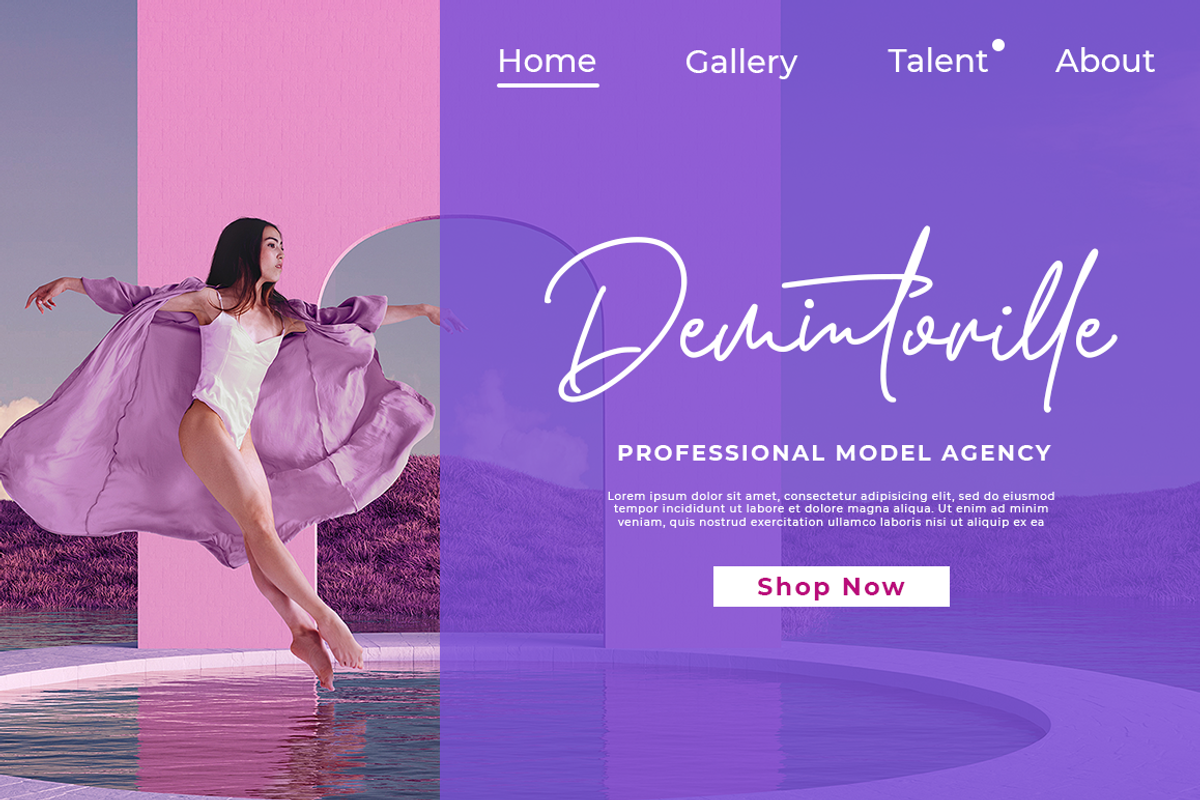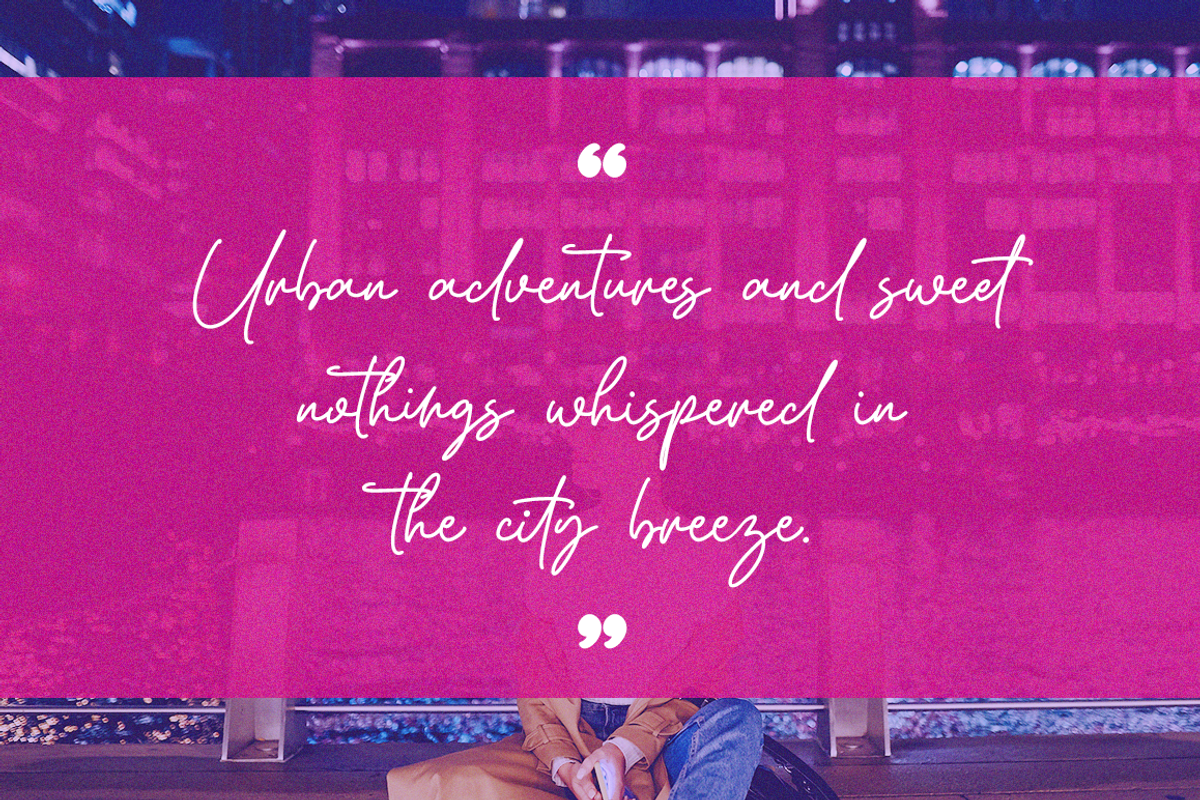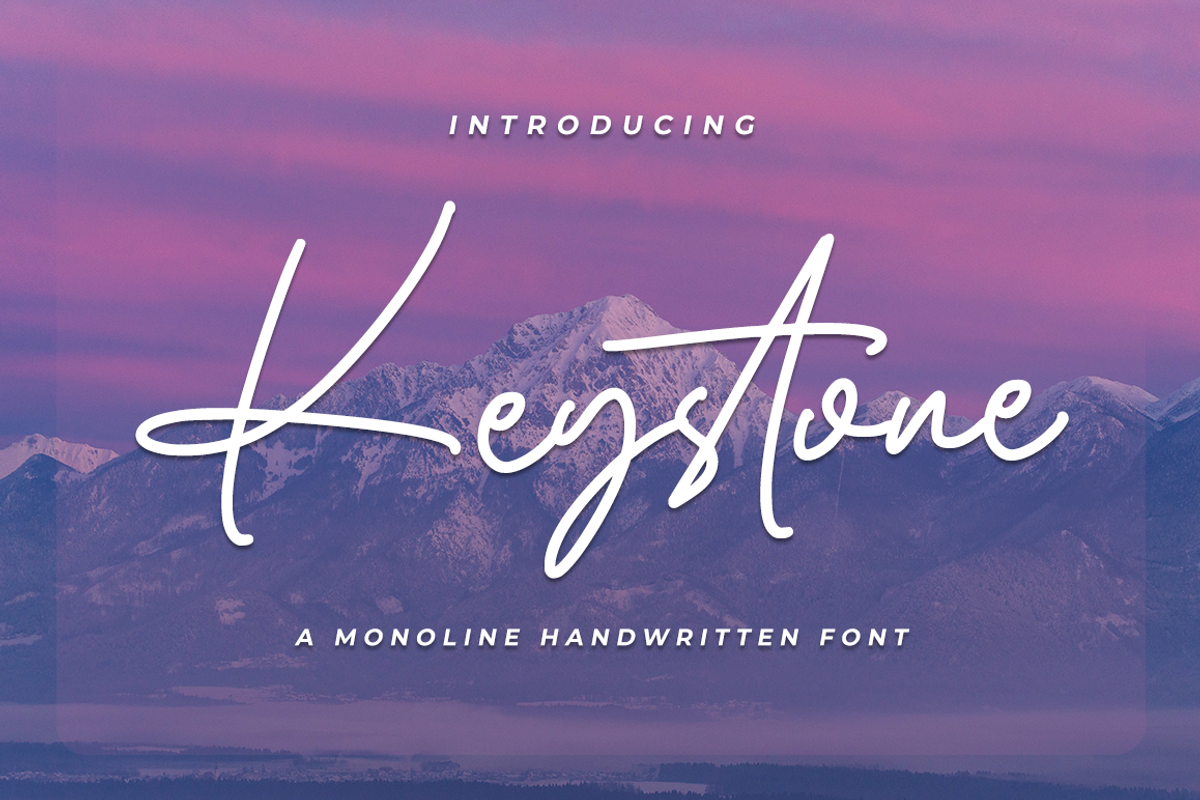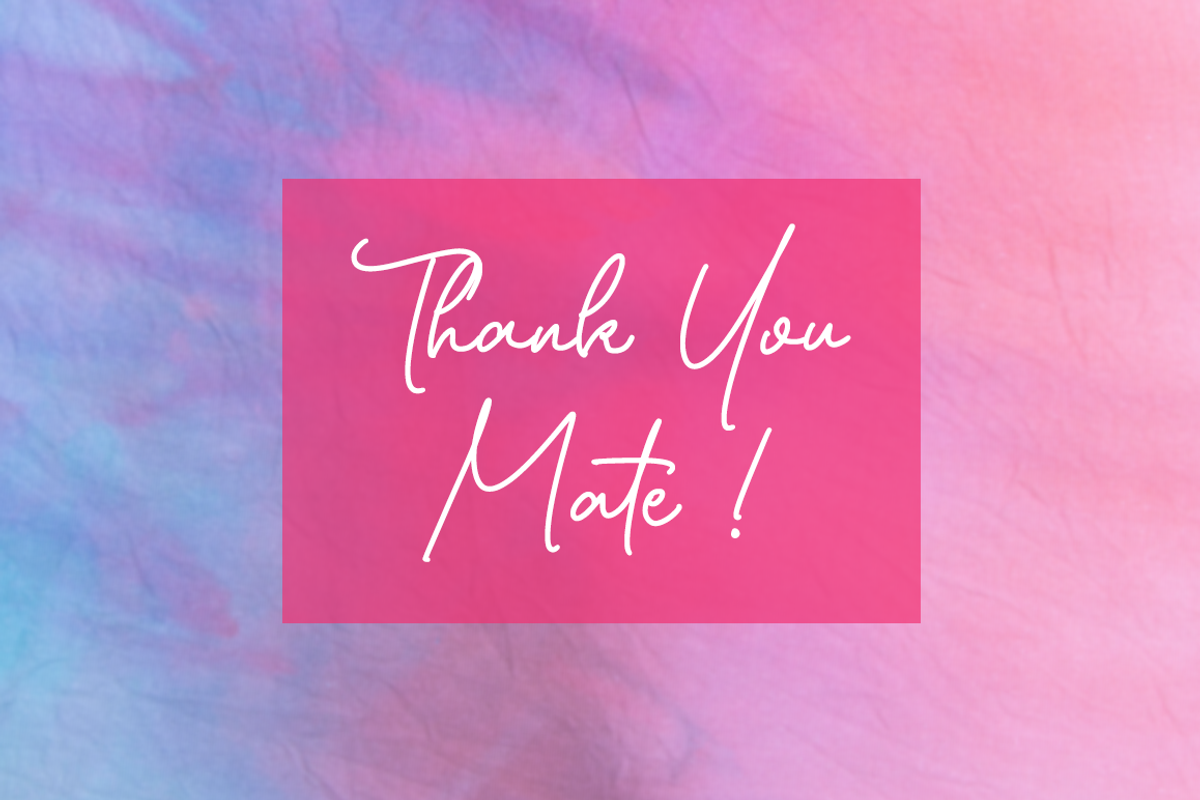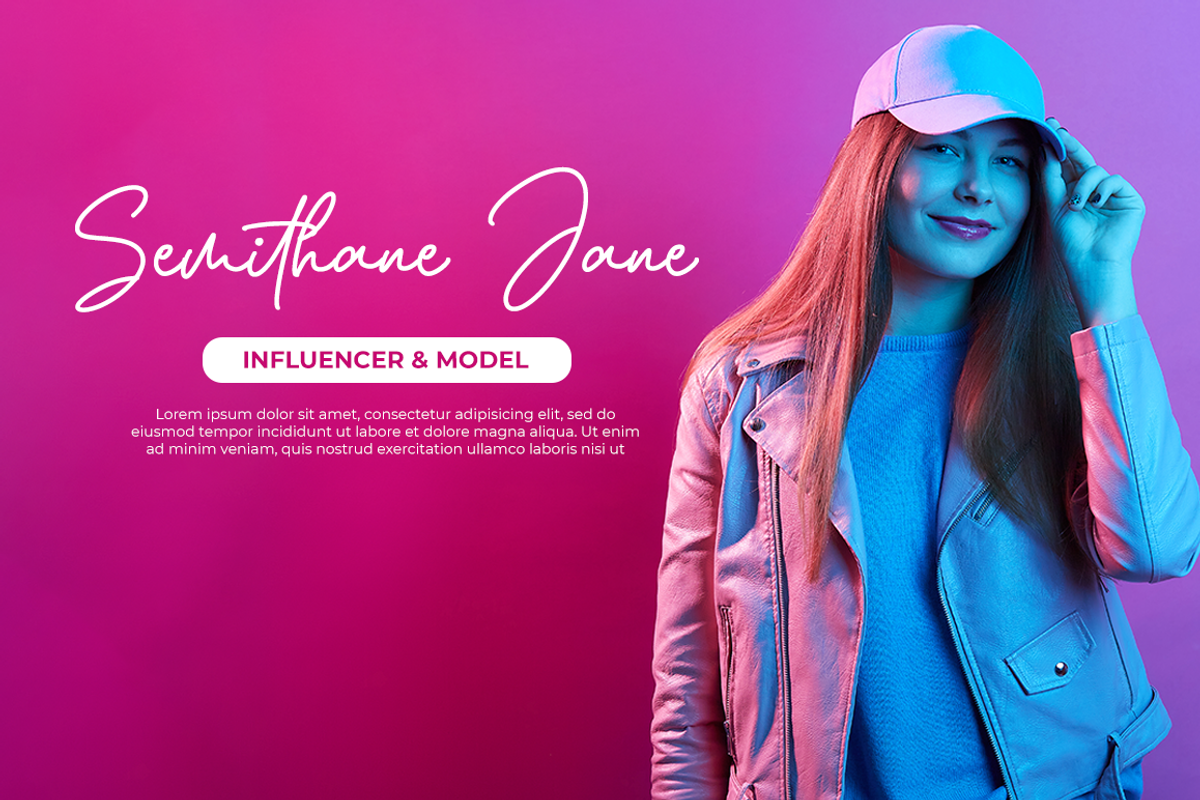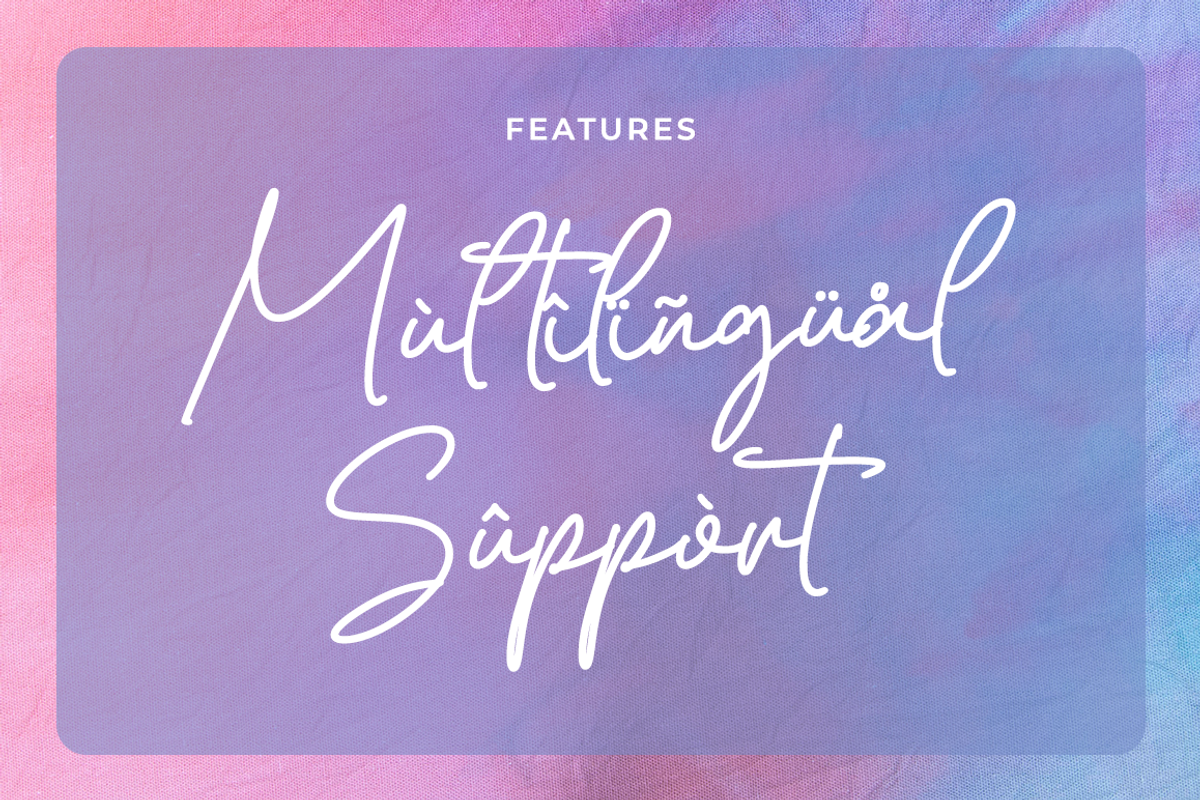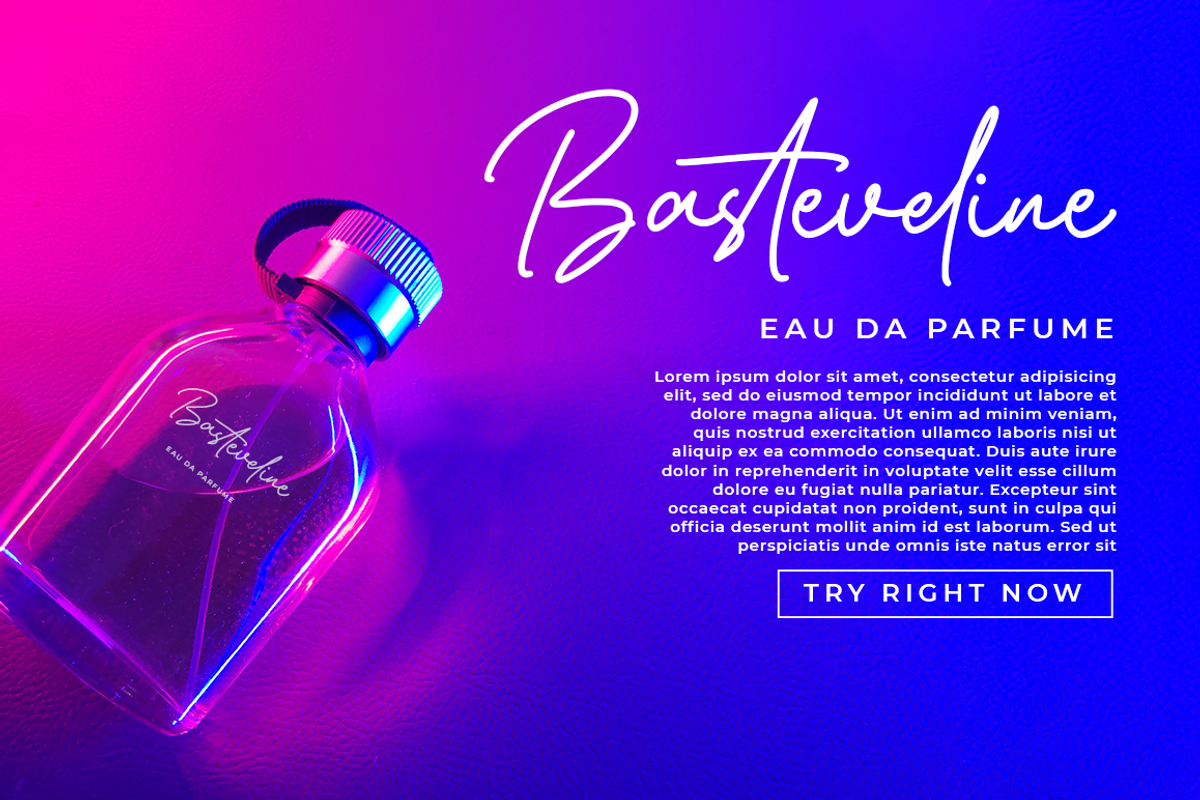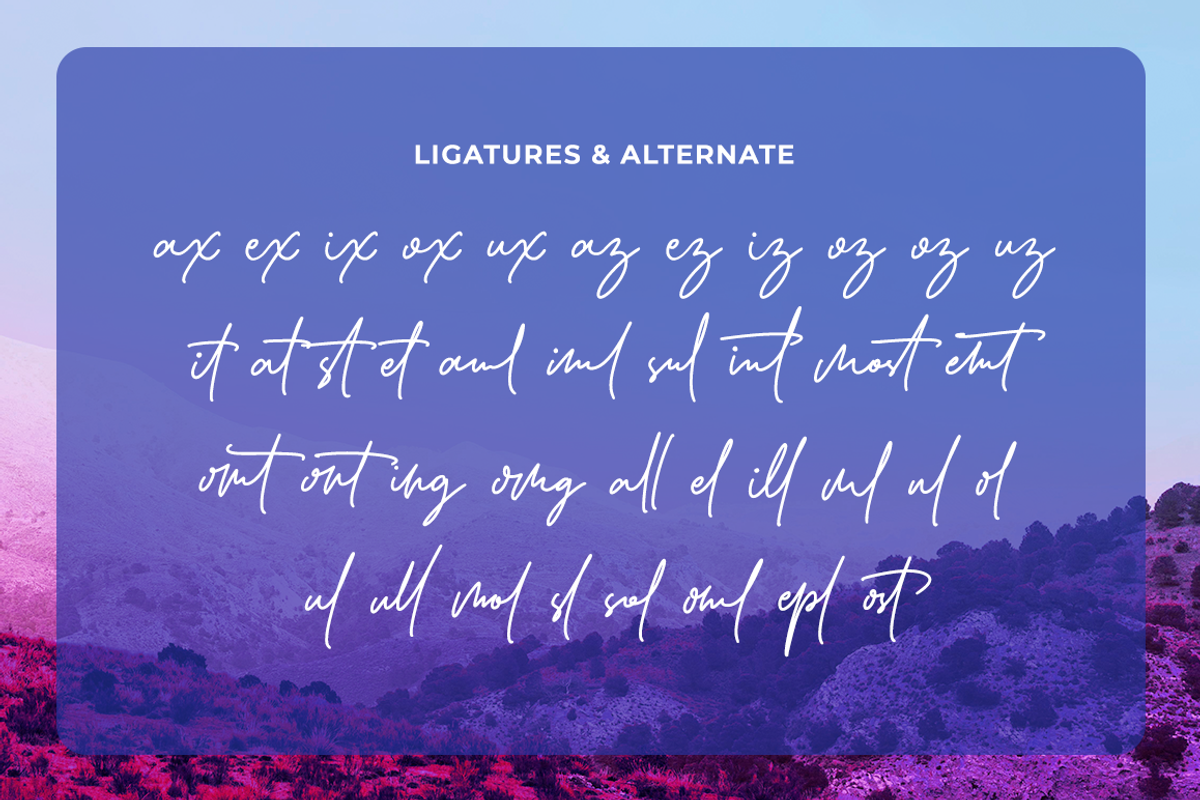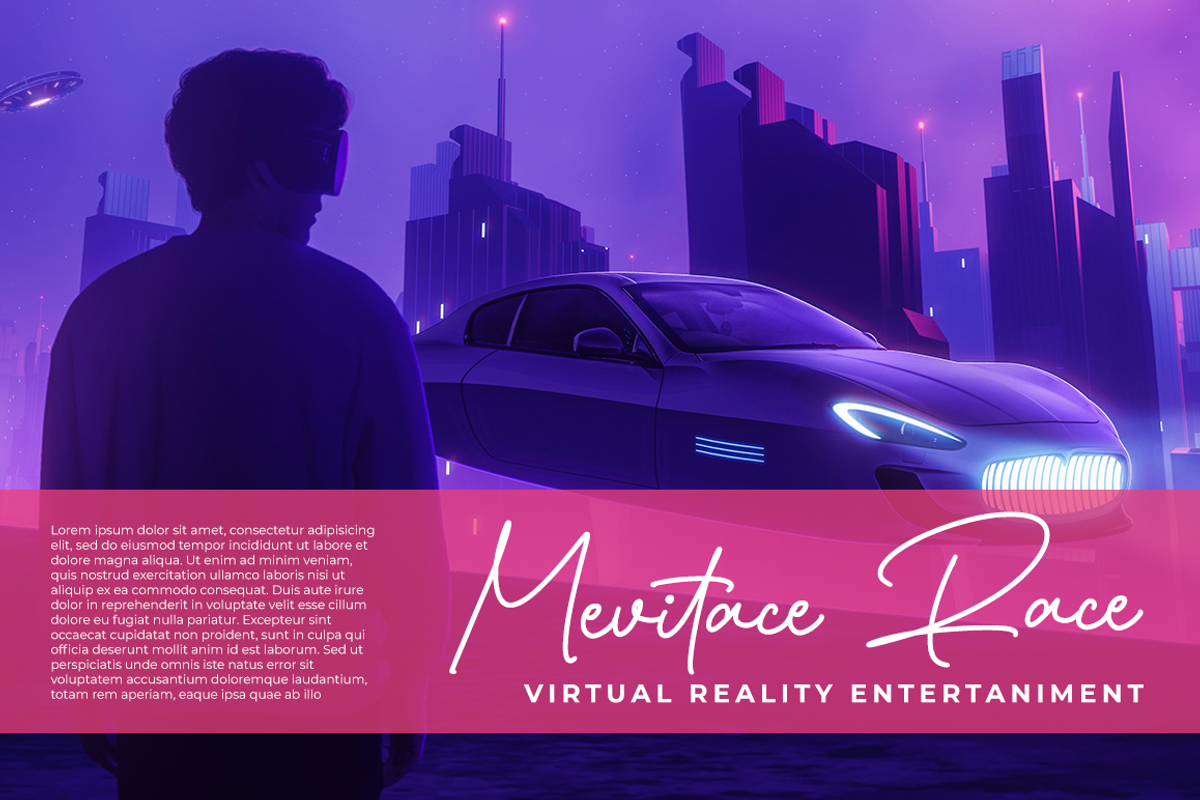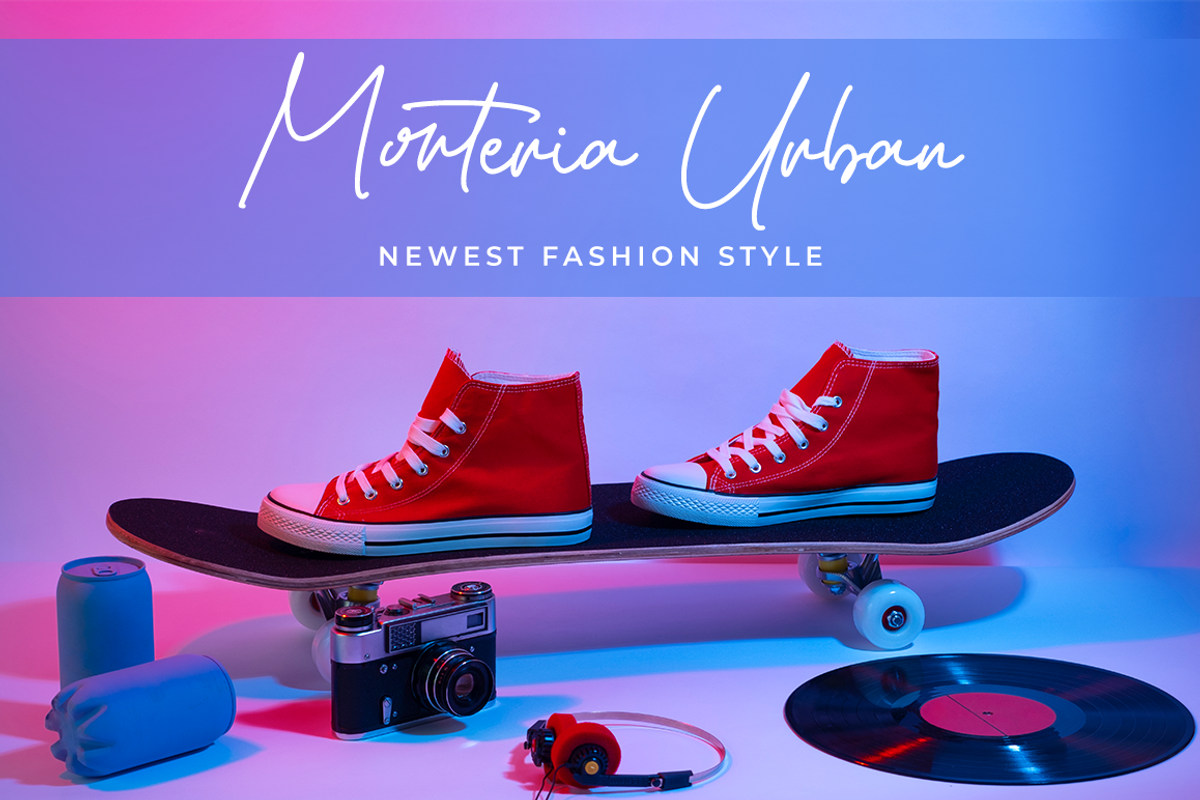
Keystone - Signature Font
Keystone is a modern signature font which is combining classic calligraphy with a modern style. Its dancing baseline will give your design an elegant and modern touch.